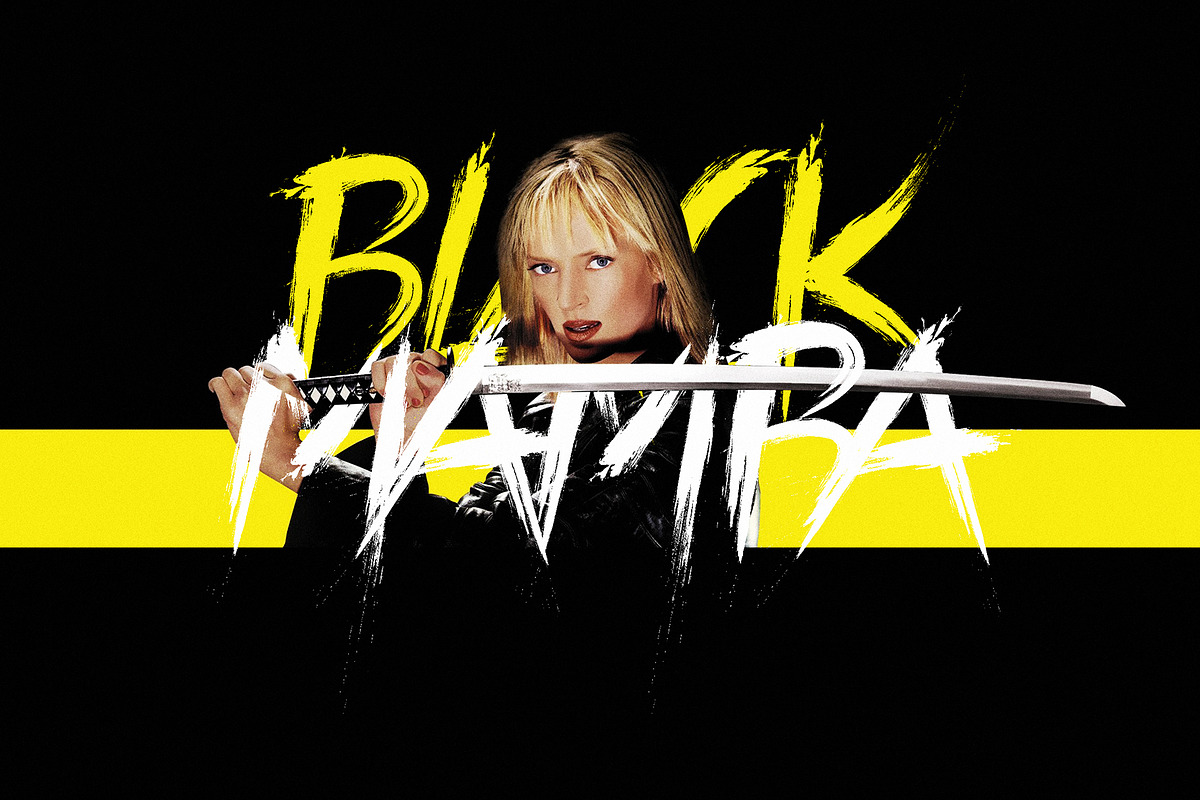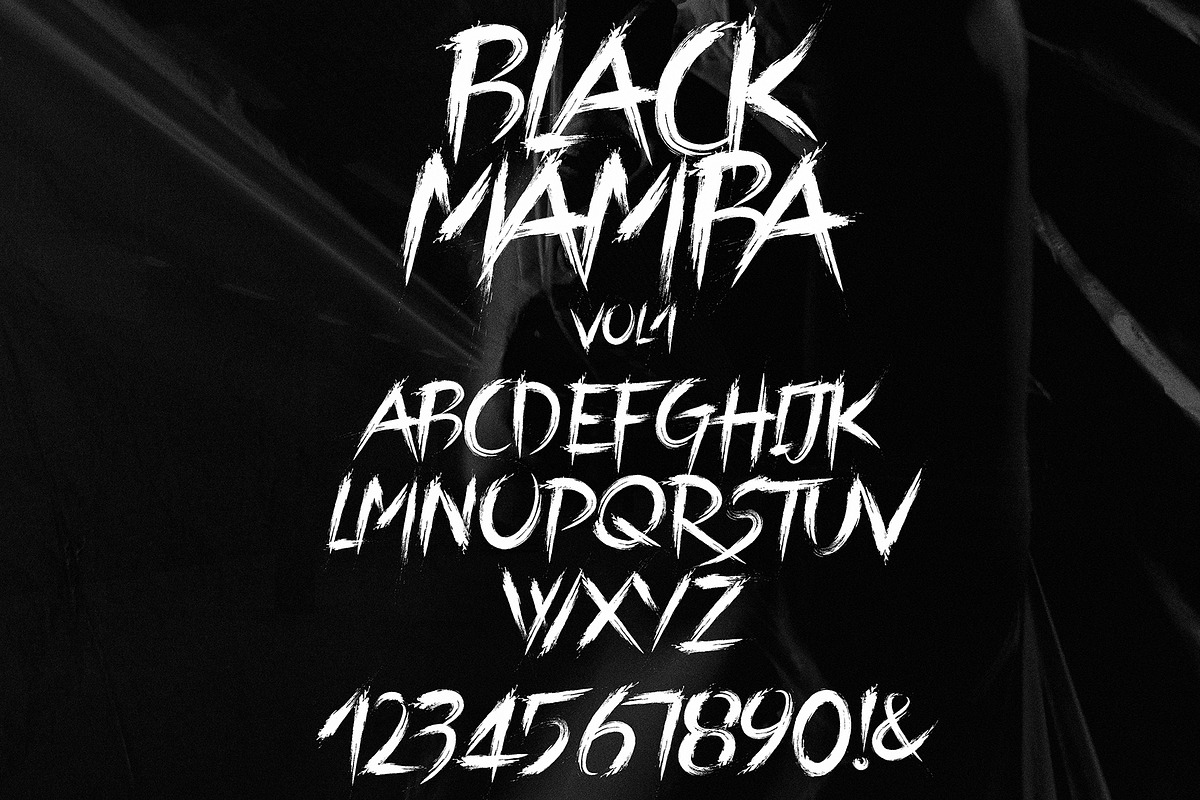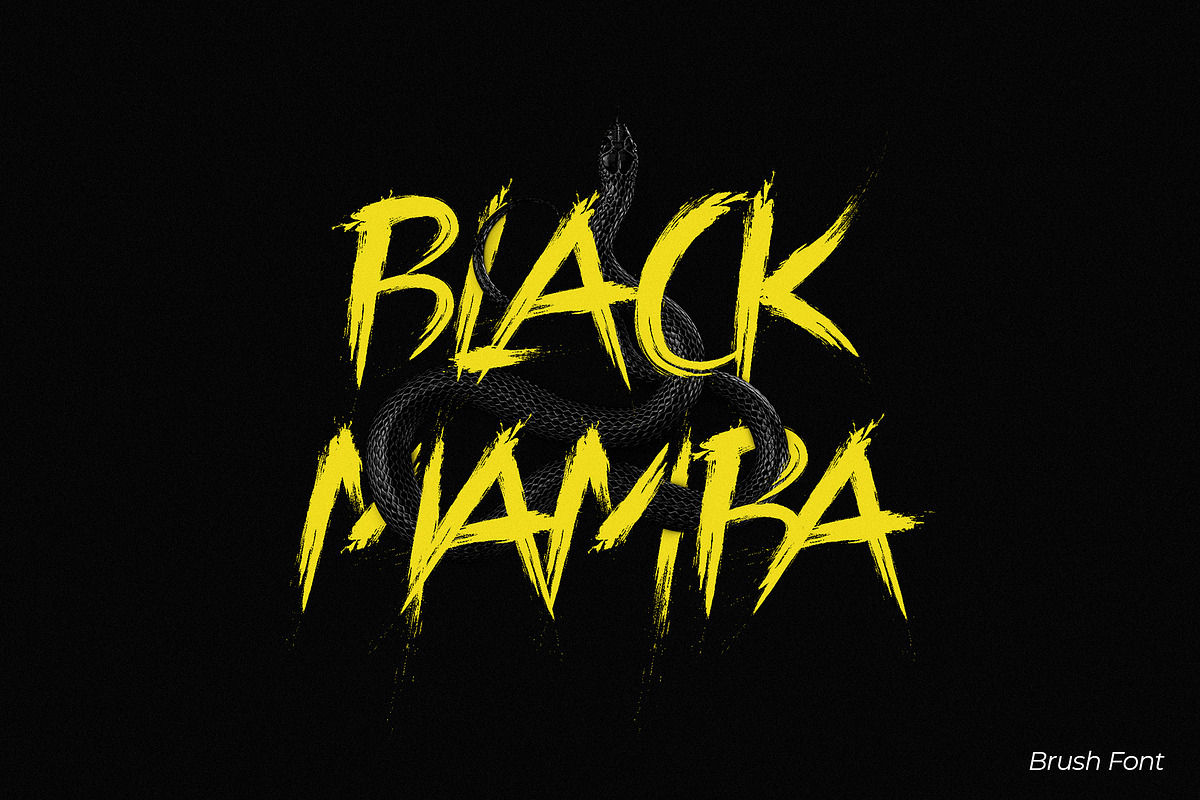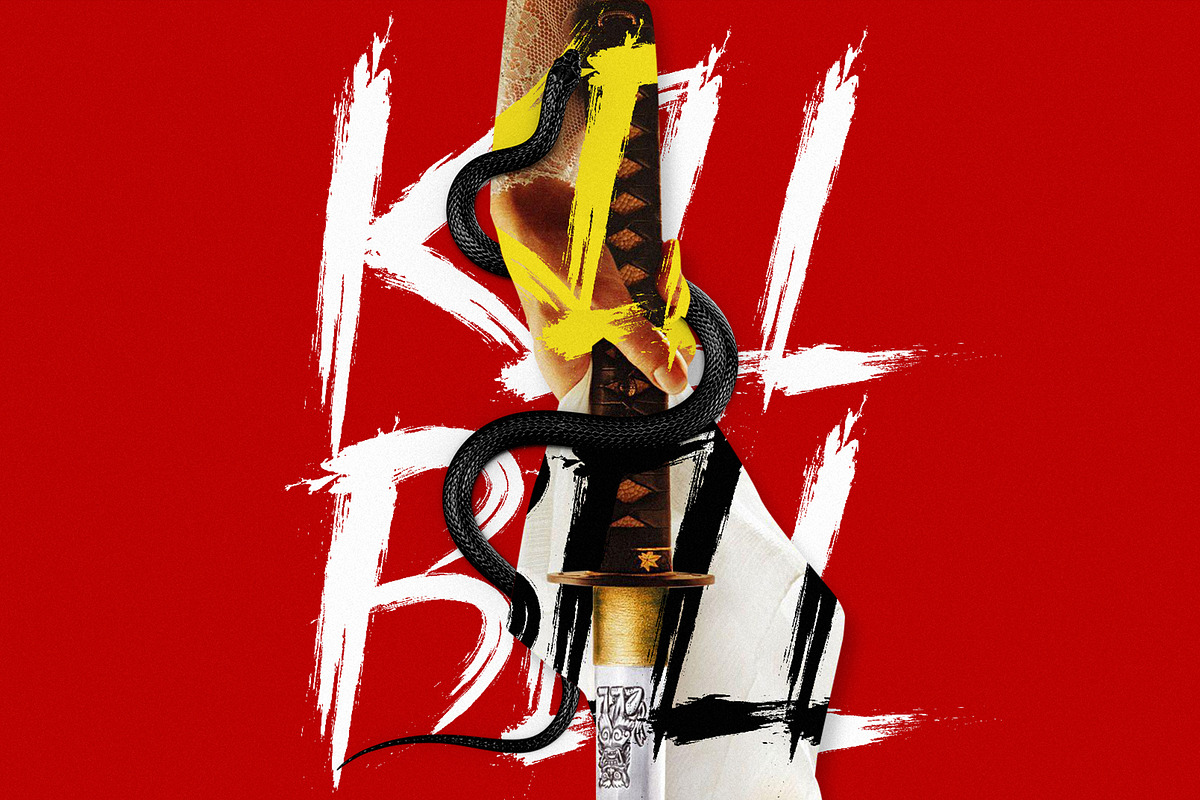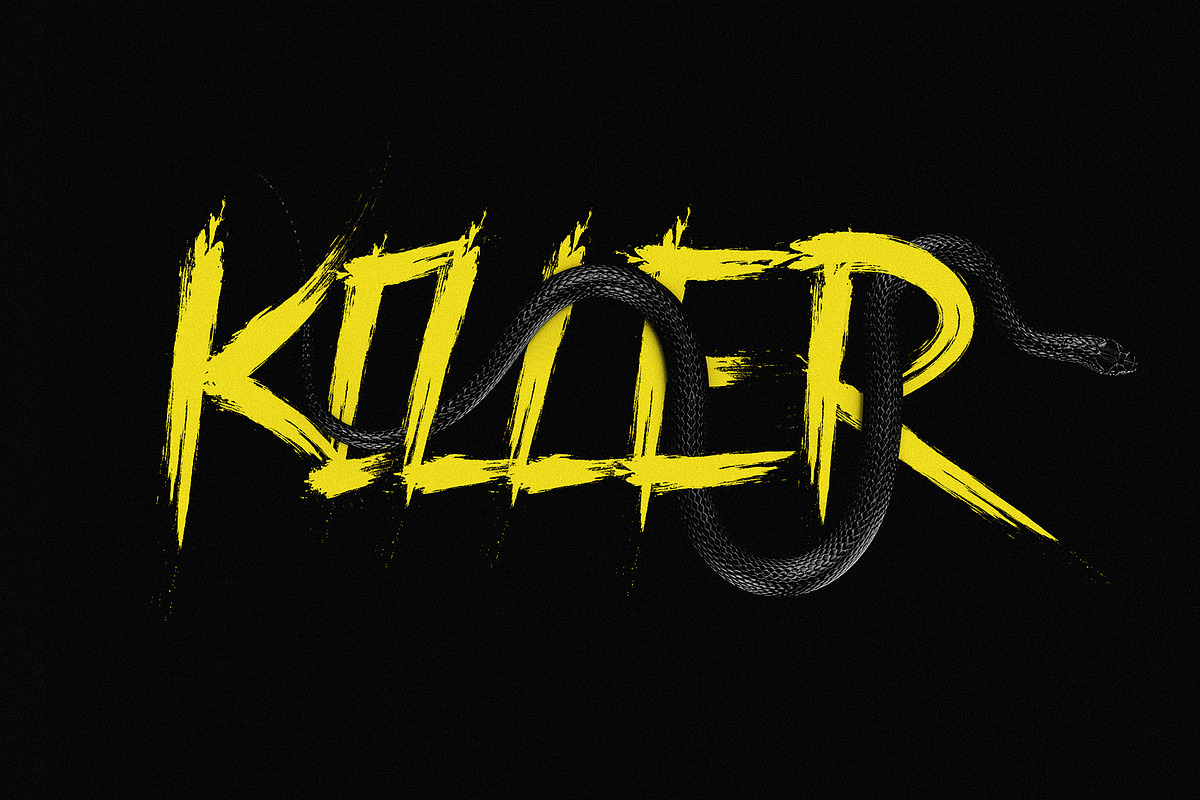
Black Mamba Vol.1 Brush Font
Black Mamba Regular Vol. 1 is one of the deadliest fonts. It's can turn your artwork into an aggressive piece of design. Attention grabber, and to make your design pop. Black Mamba Regular Vol. 1 is inspired by Kill Bill. The slashing style, the splasher, and the grundy make up the font movement. Much like the Hanzo sword cuts through a full house of deadly assassins. With this font, you can slice your way through creativity.
Black Mamba Regular Vol.1 limited edition High contrast type.
Black Mamba Vol.1 Brush Font by Synk Designs fits naturally into Branding, posters, packaging, typography.